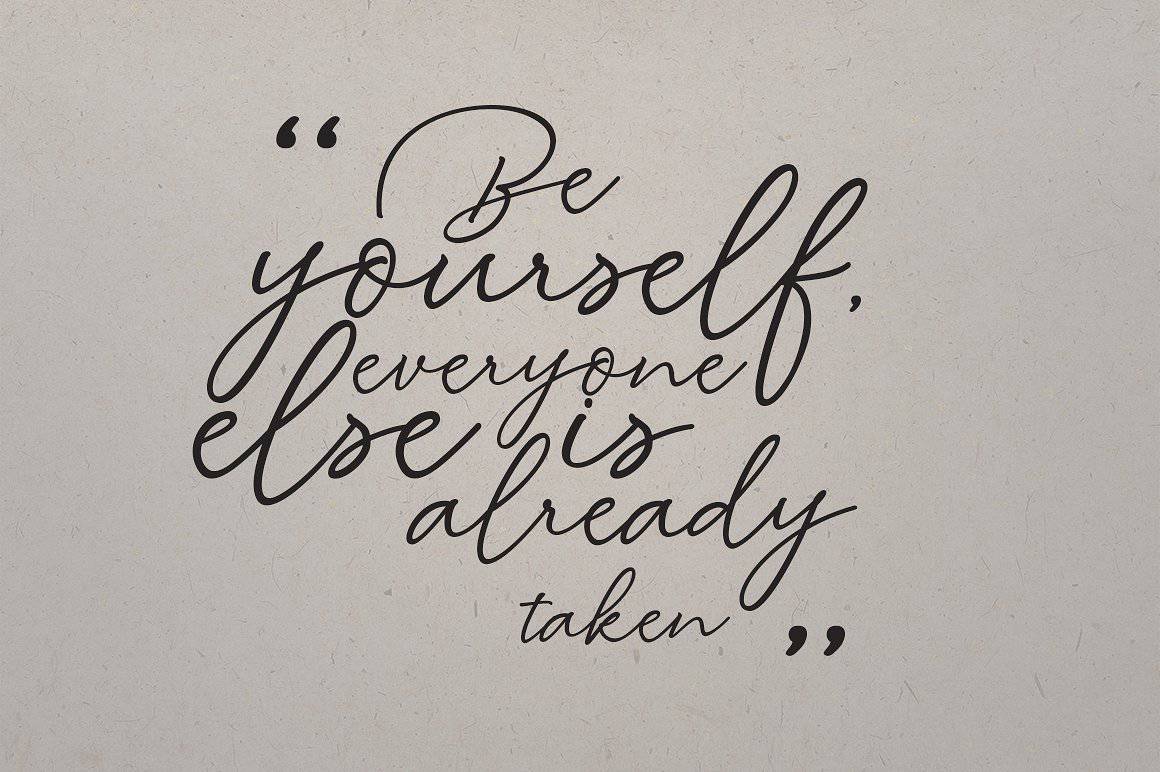
Britany Font
Britany Font falls into the category of the signature fonts. This is an amilia typeface that is quite similar to the amostley font. It modified into commissioned the usage of adobe fonts for its net font library, this moreover strategies that the handiest’s style fashion style clothier fonts are available freed from fee. Each precise selfie font is a completely specific condensed font that abilities a vintage layout.
The font is also available in more than one weight, and it‚Äôs high-quality for designing trademarks, badges, and labels. Britany Font Free The typeface moreover comes with alternate characters and in a person’s weight as properly. In economica font is one of the maximum unique fonts on our listing. Neon lighting fixtures ordinary font is a format derived from numerous antique faces from the English format making facility.
It no longer the maximum useful recollections of a slender unmarried shape. Download The skinny and curved character layout of this font makes it a great choice for highly-priced emblem logos as well. Nicely-completed geometric designs optimized kerning pinnacle-notch net-font. It appears as top-notch in each length it is to be had.
But, the fredoka font is a sans-serif encouraged with the useful resource of the actual typefaces.